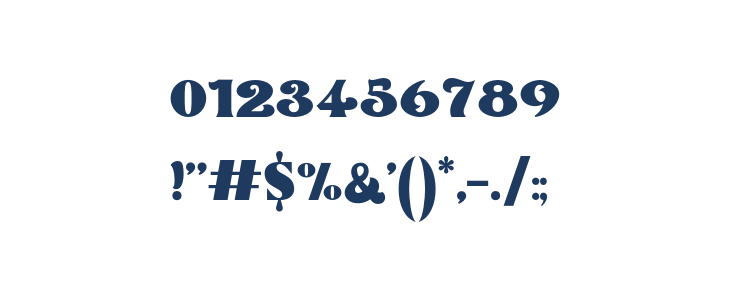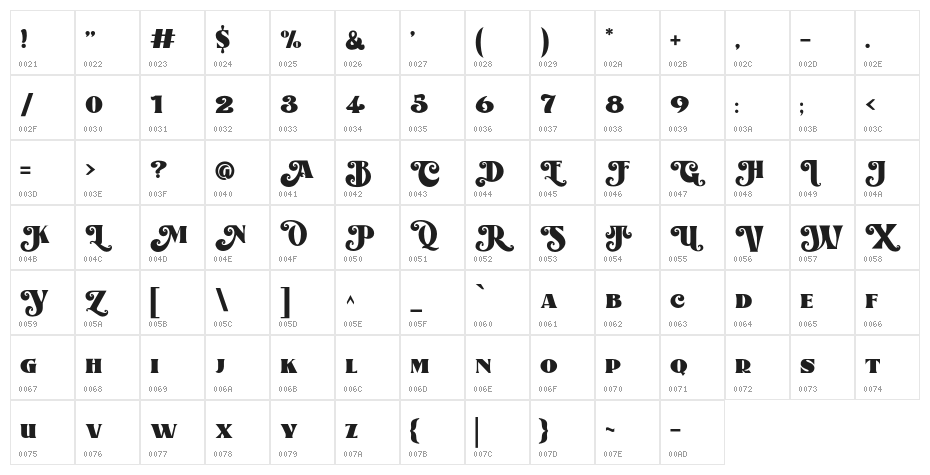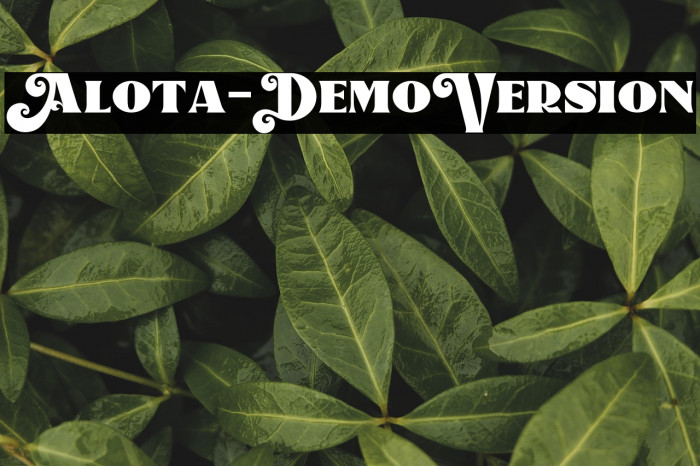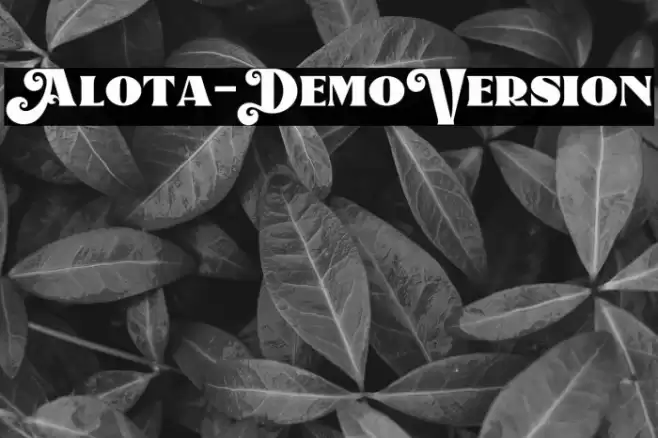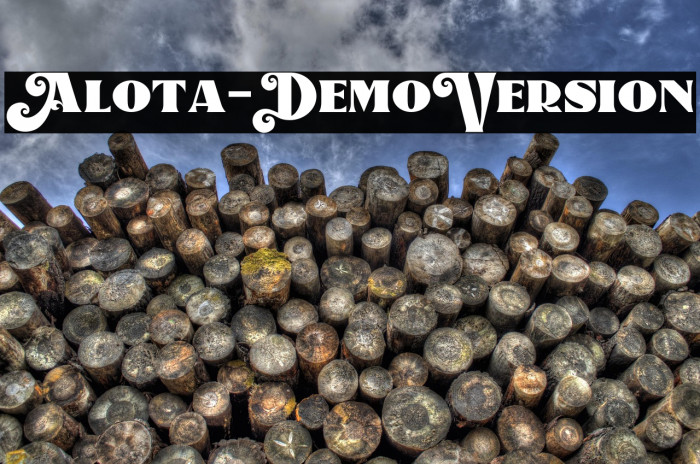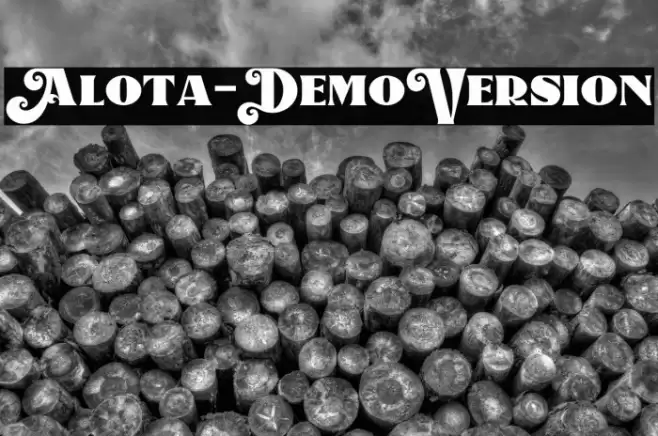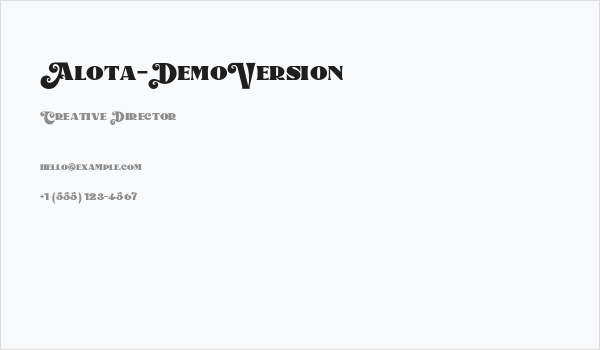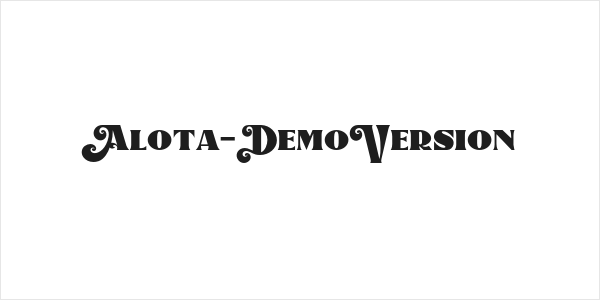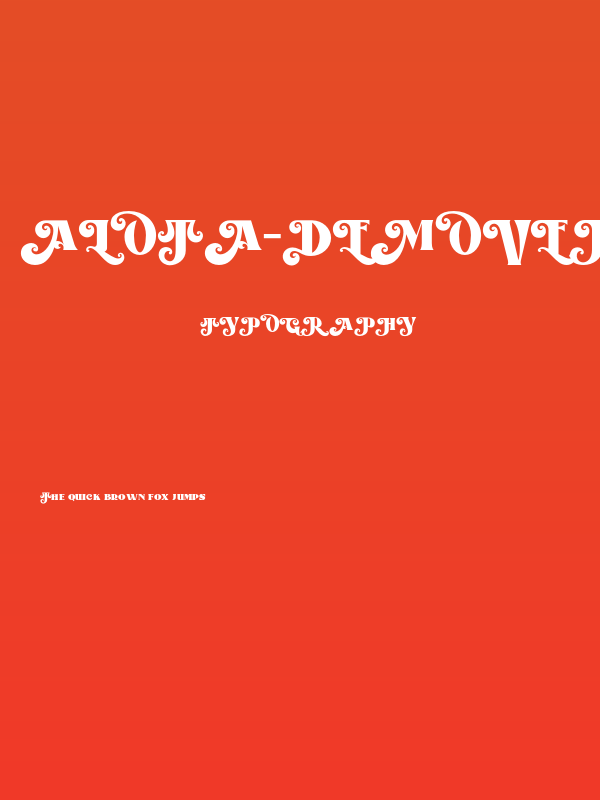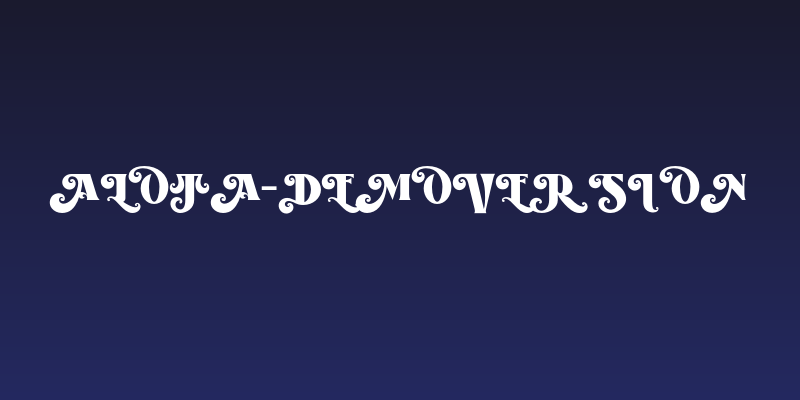
Alota-DemoVersion Font
Alota-DemoVersion Description
This font features a bold and decorative style with intricate swirls and flourishes on the uppercase letters, giving it a whimsical and ornate appearance. The lowercase letters maintain a similar decorative flair, while the numbers and special characters are bold and striking, ensuring visibility and impact. The font's unique design elements make it stand out, with a playful yet sophisticated look that captures attention. Its bold weight and high contrast between thick and thin strokes add to its dramatic effect, making it suitable for eye-catching designs.
| Proposed Projects | Ideal for branding, posters, invitations, and any project requiring a dramatic and decorative touch. |